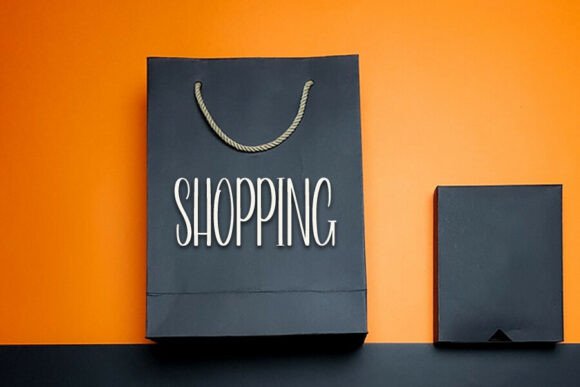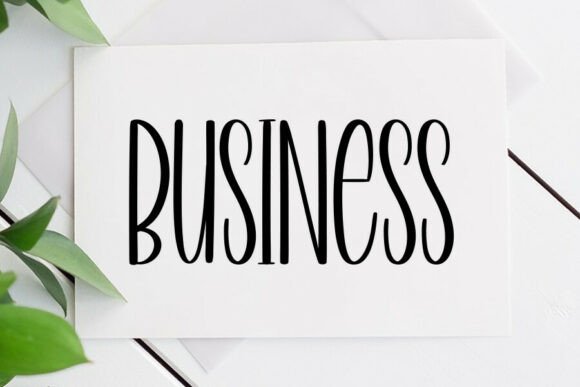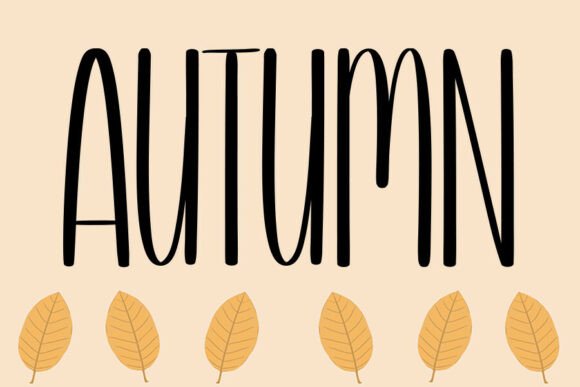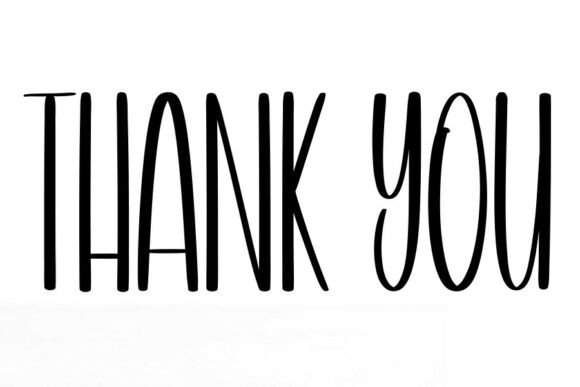
Cookies Font: The Perfect Handwritten Typeface for Your Creative Projects
Are you looking for a font that can add a personal touch to your designs? Look no further than Cookies Font! This tall, playful handwritten font is perfect for creating casual, heartfelt designs that resonate with your audience. With its slim, elongated characters, Cookies typeface brings a sense of warmth and personality that’s ideal for a wide range of projects.
What Makes Cookies Font So Special?
Cookies typeface is a unique blend of clean handwritten style and charm. Its casual, laid-back feel makes it perfect for personal and emotional projects, such as Father’s Day designs, greeting cards, t-shirts, posters, and more. The font’s slim, elongated characters give it a distinctive look that’s both elegant and playful.
One of the key features that sets Cookies Font apart is its ability to evoke emotions. The font’s handwritten style gives it a personal, human touch that’s hard to find with more traditional fonts. Whether you’re creating a design for a special occasion or just want to add some personality to your project, Cookies typeface is the perfect choice.
Cookies Font is incredibly versatile, making it perfect for a wide range of projects. Here are just a few ideas to get you started:
- Cards and Invitations: Add a personal touch to your greeting cards, invitations, and other paper crafts with Cookies typeface.
- T-Shirts and Apparel: Create unique and stylish designs for t-shirts, hoodies, and other apparel with this fun and playful font.
- Posters and Flyers: Use Cookies Font to create eye-catching posters and flyers that grab attention and convey your message.
- Digital Designs: Add a personal touch to your digital designs, such as social media graphics, blog posts, and email newsletters.
Why Designers and Crafters Love Cookies Font
Designers and crafters love Cookies Font for its unique combination of style and versatility. Here are just a few reasons why:
- Easy to Read: Despite its playful, handwritten style, Cookies typeface is incredibly easy to read, making it perfect for designs where clarity is key.
- Highly Versatile: Cookies Font can be used for a wide range of projects, from personal crafts to commercial designs.
- Unique Style: The font’s slim, elongated characters give it a distinctive look that’s sure to stand out from the crowd.
Tips for Using Cookies Font in Your Designs
Here are a few tips for getting the most out of Cookies Font in your designs:
- Keep it Simple: Don’t be afraid to keep your design simple and let the font speak for itself.
- Experiment with Colors: Cookies Font looks great in a wide range of colors, so don’t be afraid to experiment and find the perfect hue for your design.
- Pair with Other Fonts: Try pairing Cookies typeface with other fonts to create a unique and eye-catching design.